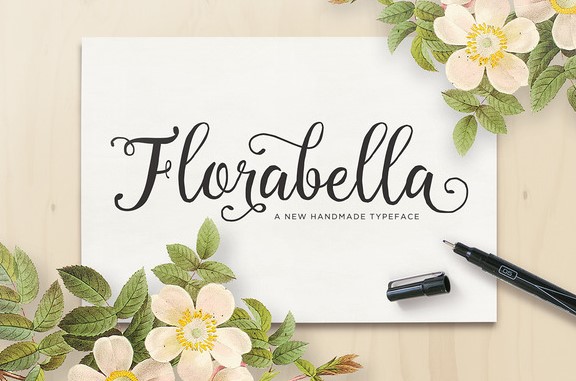
Florabella Font Free Download
Florabella has an irregular baseline, trendy look, rough edges, and harmony. This font family was designed by Seniors Studio. It is great for weddings and wishes cards, logos, quotes, and also perfect using in watercolor or ink.
Florabella Font
NameFlorabella Font
DesignerSeniors Studio
StyleScript
Date Released2015